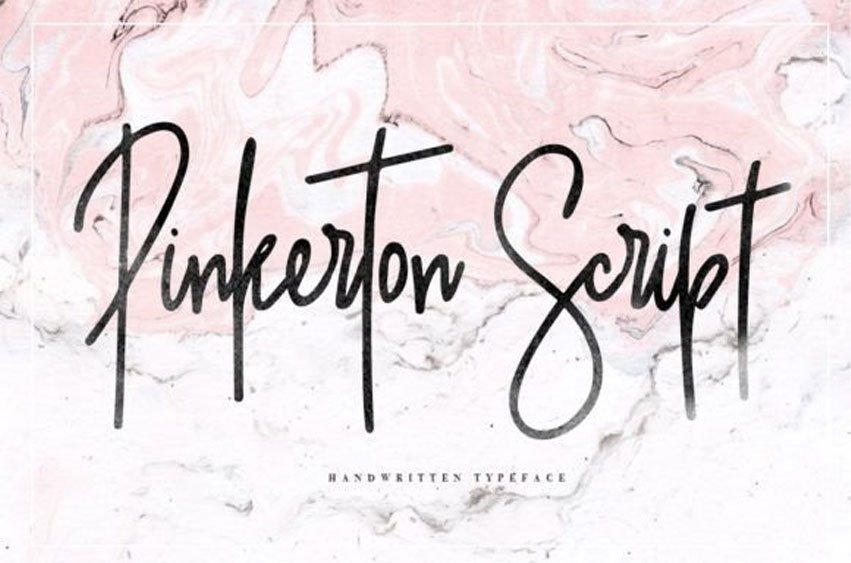
Pinkerton Script Font is an elegant handwritten font that is perfect for adding an air of sophistication to any project. Its classic, yet modern look makes it a timeless choice for any occasion.
Its thin strokes and smooth curves make it easy to read, while its distinctive character makes it stand out from the crowd. Its versatility makes it the perfect choice for adding a touch of class to any project.